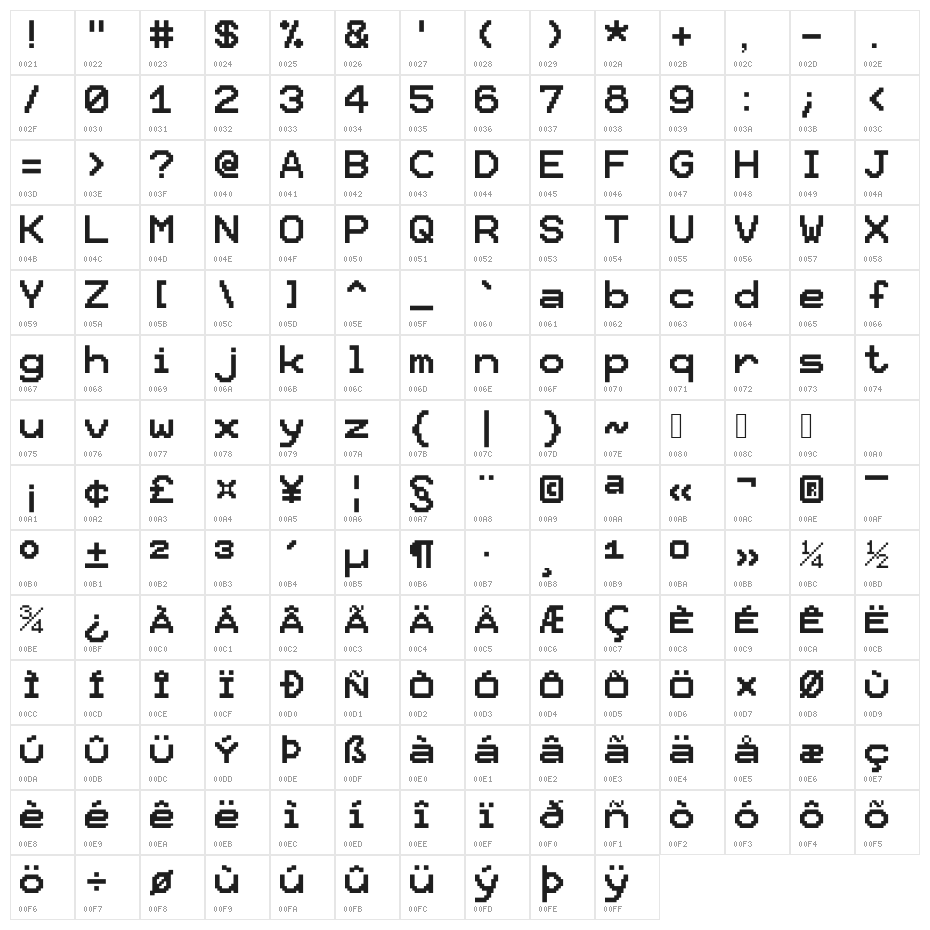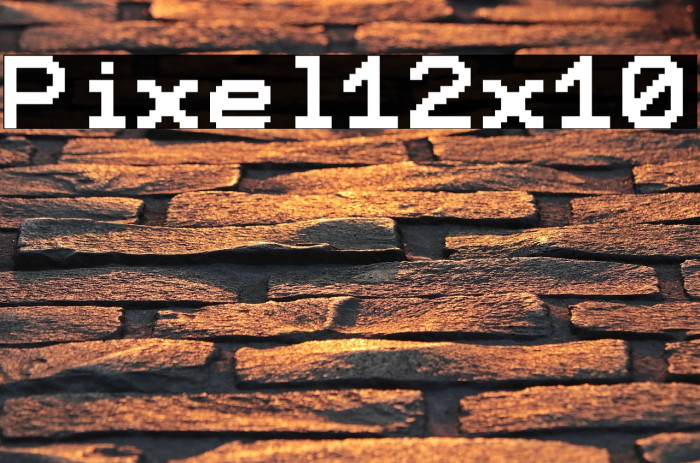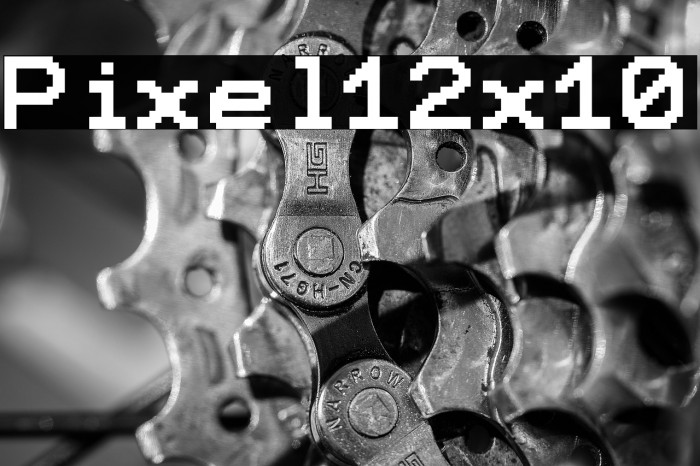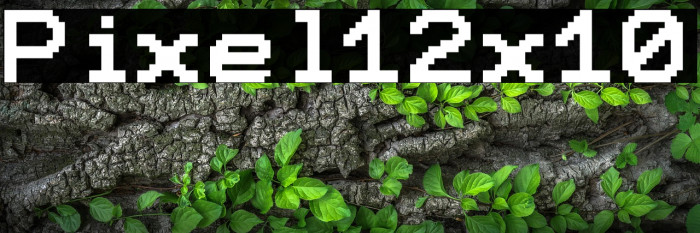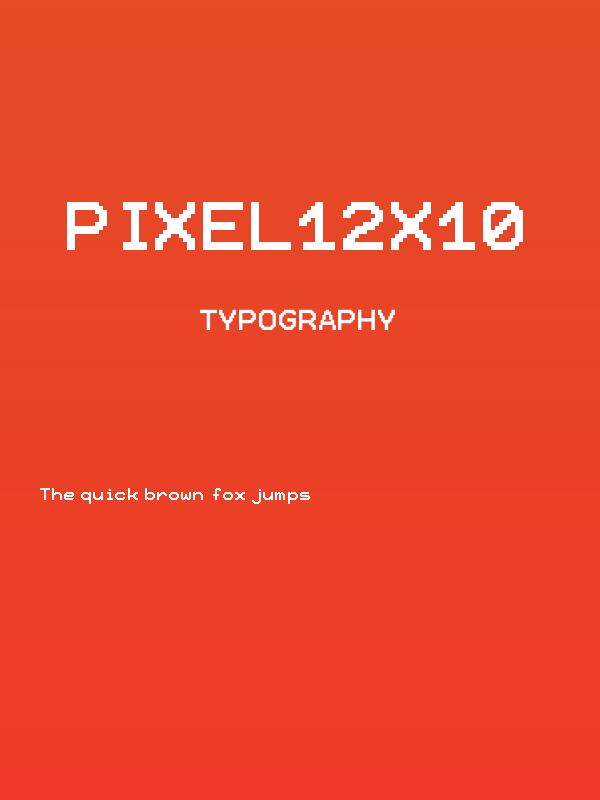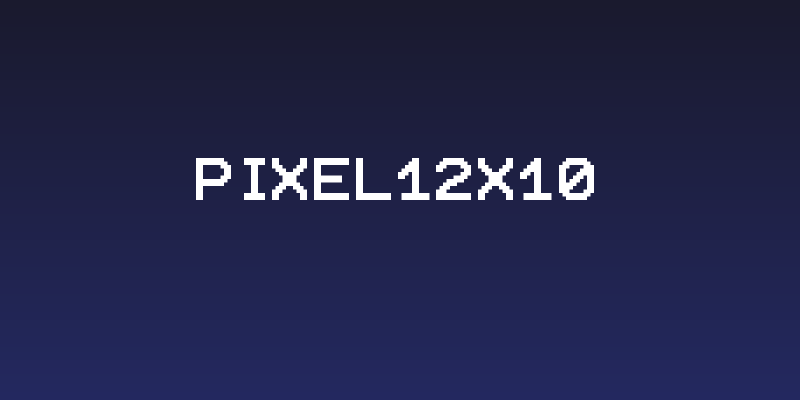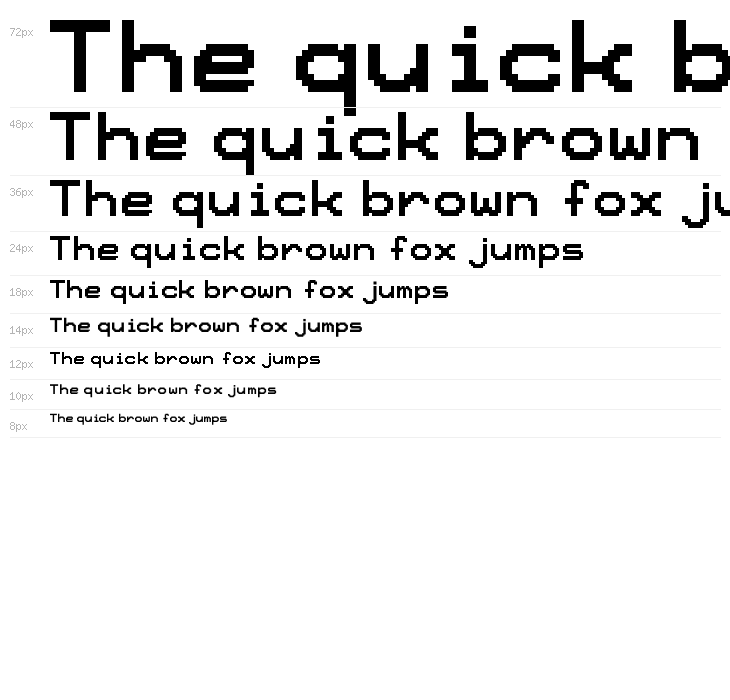
Pixel12x10 Font
Pixel12x10 Description
This font features a pixelated, retro style reminiscent of early digital displays and video games. Each character is composed of a grid-like structure, giving it a blocky and geometric appearance. The uppercase and lowercase letters maintain a consistent height and width, emphasizing uniformity and simplicity. Numbers and special characters follow the same pixelated design, ensuring a cohesive look across all glyphs. The font's straightforward and nostalgic aesthetic makes it ideal for projects that aim to evoke a sense of nostalgia or a digital, tech-inspired theme.
| Overall Style | Retro, Digital |
| Use Case | Headlines, Logos, Digital displays |
| Proposed Projects | Ideal for retro video games, digital art projects, tech-themed posters, and nostalgic branding. |